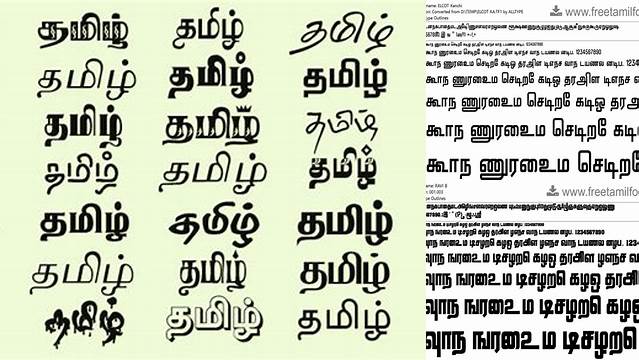
Free Fire Font Styles: Tamil Edition
Hey guys! Are you a die-hard Free Fire player in Tamil Nadu, looking to spice up your in-game name and chat with some cool font styles? You've come to the right place! We're diving deep into the world of Free Fire font styles, specifically tailored for our Tamil-speaking gamers. Forget the boring default fonts; let's get you looking fly and stand out in the heat of battle! This article is your ultimate guide to mastering the art of cool text in Free Fire, from understanding the basics to finding the perfect Tamil-inspired fonts and generating them like a pro. So, buckle up, get ready to unleash your creativity, and let's transform your in-game presence with some awesome font styles! We'll cover everything from the best websites and apps for generating these styles to how to copy and paste them seamlessly into your Free Fire profile. Prepare to level up your style game and make a statement! Get ready to dominate the battlefield, not just with your skills but with your unique and eye-catching font.
H2: Understanding Free Fire Font Styles: What are They?
Okay, first things first: what exactly are Free Fire font styles? Simply put, they're customized text formats that allow you to express yourself uniquely within the game. Think of it as giving your name, chat messages, and even guild descriptions a makeover. Instead of the plain, standard font, you can use special characters, symbols, and stylistic variations to create a more visually appealing and personalized experience. The beauty of Free Fire font styles lies in their ability to grab attention. In a game where everyone's vying for attention, a distinctive font can make you instantly recognizable. When you see a cool name or a quirky message pop up, you're more likely to take notice, right? This is the power of Free Fire font styles. Now, many players will just use fancy fonts to make their names look attractive and feel different. However, the use of font styles is more than just aesthetics; it's a form of self-expression. It shows the players' creativity and personality and it makes other players take notice. Using these font styles provides a fresh way to play the game. You're not just another player in the crowd; you're a unique individual with a style that can be recognized instantly. So, whether you're looking to intimidate your opponents with a bold, aggressive font or impress your teammates with a playful, creative style, Free Fire font styles are a game-changer. It's a perfect way to step up your game, and a fun way to interact with the community. The use of unique font styles is also a good way to improve how the game is perceived. And, by using these font styles properly, it is possible to influence other players to learn your strategy or even change the way they play. It is definitely a new way to play Free Fire. The possibilities are endless. With Free Fire font styles, you're not just playing a game; you're creating an identity.
H2: Why Use Different Font Styles in Free Fire?
Alright, so we know what Free Fire font styles are, but why should you actually bother using them? Well, there are several compelling reasons, my friends! First and foremost, using unique font styles makes your profile stand out from the sea of generic names. Imagine being in a match, and you see a name that's not just words but an artistic creation. It immediately piques your interest, doesn't it? That's the power of a distinctive font. It's about creating a memorable identity in a crowded virtual world. Secondly, font styles add a layer of personalization to your gaming experience. Your in-game name is often the first thing other players see. Using a stylish font allows you to express your personality, whether you're feeling playful, aggressive, or artistic. It's a visual representation of who you are as a player. Thirdly, using various font styles can boost your confidence and make the game more enjoyable. There's something incredibly satisfying about having a name that looks cool and unique. It can give you a little extra swagger, making you feel more confident and motivated to play your best. And let's not forget the social aspect. Having a unique font can spark conversations, especially if you’re using Tamil-inspired styles. Other Tamil players might recognize your name and strike up a conversation. This can lead to new friendships and a stronger sense of community within the game. Finally, and perhaps most importantly, using different font styles is just plain fun! It's a creative outlet. It allows you to experiment with different designs and styles to express yourself in a way that words alone can't. Whether you're looking for a cool name, a stylish clan tag, or just a fun way to chat, font styles are a great way to do it. So, there you have it – the benefits of using Free Fire font styles are pretty compelling. They help you stand out, express yourself, boost your confidence, connect with others, and have a blast while playing. So, why not give it a shot?
H3: The Aesthetic Appeal: How Fonts Make Your Name Pop
Let's talk aesthetics, shall we? When we talk about Free Fire font styles, we're essentially discussing visual appeal. Your name is the first thing other players see. It's your digital handshake, your virtual introduction. A default font is, well, a bit boring. It blends in. A custom font, on the other hand, is like a neon sign in a dimly lit room. It draws the eye, grabs attention, and makes you memorable. Different font styles can communicate different things. A bold, strong font might suggest a powerful player, someone who’s not afraid to take charge. A cursive or more elaborate font might suggest creativity, artistry, or a touch of elegance. Some fonts use special characters and symbols that add an extra layer of visual interest. Think of it as an extension of your personality. This is especially true when using Tamil-inspired fonts, as you can incorporate traditional symbols and stylistic elements. This aesthetic appeal goes beyond just looking good. It can subtly influence how others perceive you. A well-designed name can project an image of skill, confidence, and approachability. It can even become a conversation starter. Players may ask how you got that cool font, opening the door to new friendships and alliances. Moreover, the aesthetic aspect is essential for creating a unique gaming experience. It is a way to make the game fresh and interesting and will make you want to play even more. In the competitive world of Free Fire, standing out is key, and a stylish font is a surefire way to make an impact. The right font will not only reflect your gaming style, but also the kind of person you are.
H3: Boosting Your In-Game Identity with Unique Fonts
Your in-game identity is crucial. It's how you're known, how you're remembered, and how you interact with the Free Fire community. Using Free Fire font styles is a powerful way to shape that identity. It's more than just a name; it’s a personal brand. Think about it: what message do you want to send to your fellow players? Do you want to be known as a fierce competitor, a creative strategist, or a friendly teammate? The font you choose can help you convey these messages. A bold, assertive font might signal your competitive spirit. A more playful font, with unique characters, might suggest a fun and approachable personality. When you select a font, consider how it reflects your play style and your personality. Are you aggressive? Consider a strong, angular font. Are you strategic? A clean, organized font might be more your style. The beauty of Free Fire font styles is that you're not limited to one style. You can experiment with different fonts to see what resonates with you and what fits the image you want to project. Also, in the vast world of Free Fire, standing out from the crowd is important. A unique font ensures you're not just another player; you're an individual with a distinctive presence. Using font styles can help you build a reputation. It can make you more recognizable and memorable. It can also lead to new friendships and alliances. People are more likely to remember and interact with players who have a unique and eye-catching profile. In a game that revolves around competition and teamwork, crafting a strong in-game identity is a strategic move. It can influence how others perceive you, and therefore, how they interact with you. With font styles, you can shape that identity and create a more engaging and rewarding gaming experience.
H2: Tamil-Specific Font Styles: Finding the Perfect Fit
Alright, now let's get to the good stuff: finding the perfect font styles that resonate with our Tamil-speaking Free Fire players! The key is to find fonts that reflect your Tamil heritage and personal style. But how do you do that? One great approach is to look for fonts that incorporate Tamil script or characters. This instantly adds a touch of cultural identity to your in-game name. Imagine a name written in a stylish font with subtle Tamil characters sprinkled throughout—it's sure to catch the eye! Also, think about the aesthetic qualities you want to convey. Do you prefer a classic, elegant look? There are fonts that mimic traditional calligraphy styles, providing a sense of sophistication. Are you going for something more modern and edgy? Look for fonts with bold lines, unique symbols, and creative character variations. Another fantastic option is to explore fonts inspired by Tamil cinema and culture. These fonts often incorporate familiar visual elements that will resonate with other Tamil players. Consider fonts that echo movie titles, iconic slogans, or even the distinctive styles seen in Tamil posters and advertisements. These fonts can immediately create a sense of camaraderie and shared experience. When selecting fonts, it is best to keep in mind the readability of the fonts. The ultimate goal is to make a name that others can read. Some fonts may look cool, but they could also be difficult to interpret. This is a crucial point to make sure the font styles you use will be recognized easily. If you can't find a font you like, you can try combining multiple fonts. Many online tools allow you to create custom font combinations. With a little creativity, you can design a truly unique and eye-catching name. The use of Tamil-specific font styles will not only enhance your gaming experience but also connect you with your Tamil heritage. Remember, your in-game name is a reflection of you. Use it to express your personality, your culture, and your love for Free Fire.
H3: Websites and Apps for Tamil Font Generation
Where do you actually find these awesome Free Fire font styles? Fortunately, there are tons of websites and apps dedicated to font generation, including those that support Tamil characters and styles. One of the best places to start is with online font generators. These tools are super user-friendly and allow you to type in your desired name and see it transformed into various fonts instantly. Many of these generators offer a wide range of options, including specialized styles for different languages. When searching for a font generator, make sure that the tool supports Tamil characters. This is very important because the generator should include Tamil characters, not just the Latin alphabet. Also, look for generators that provide a variety of styles, from simple and clean fonts to more elaborate and decorated ones. Once you find a suitable generator, simply type in your desired name, select your preferred font styles, and copy the output. Another great option is to explore dedicated font apps for your smartphone or tablet. These apps provide a convenient way to browse and generate custom fonts on the go. Search your app store for keywords like